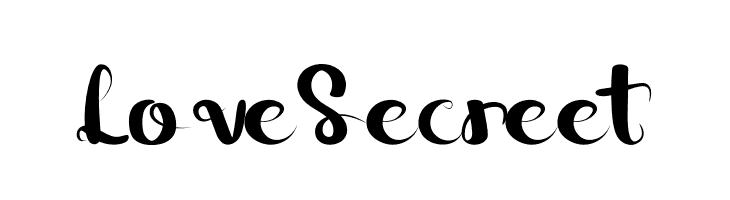
A whimsical and flowing script font with elegant curves and playful swashes.
An elegant script font with flowing, interconnected letters and decorative swashes.
An elegant script font with flowing, cursive strokes and intricate swashes.
A decorative script font with elegant swashes and flowing connections.
A graceful and romantic script font with intricate loops and swashes.
A modern, cursive script font with elegant loops and swashes.
A bold, whimsical script font with elegant swashes and loops.
An elegant script font with intricate swashes and flowing characters.
A playful and elegant script font with decorative swashes and flourishes.
A graceful script font with flowing, interconnected letters and decorative swashes.